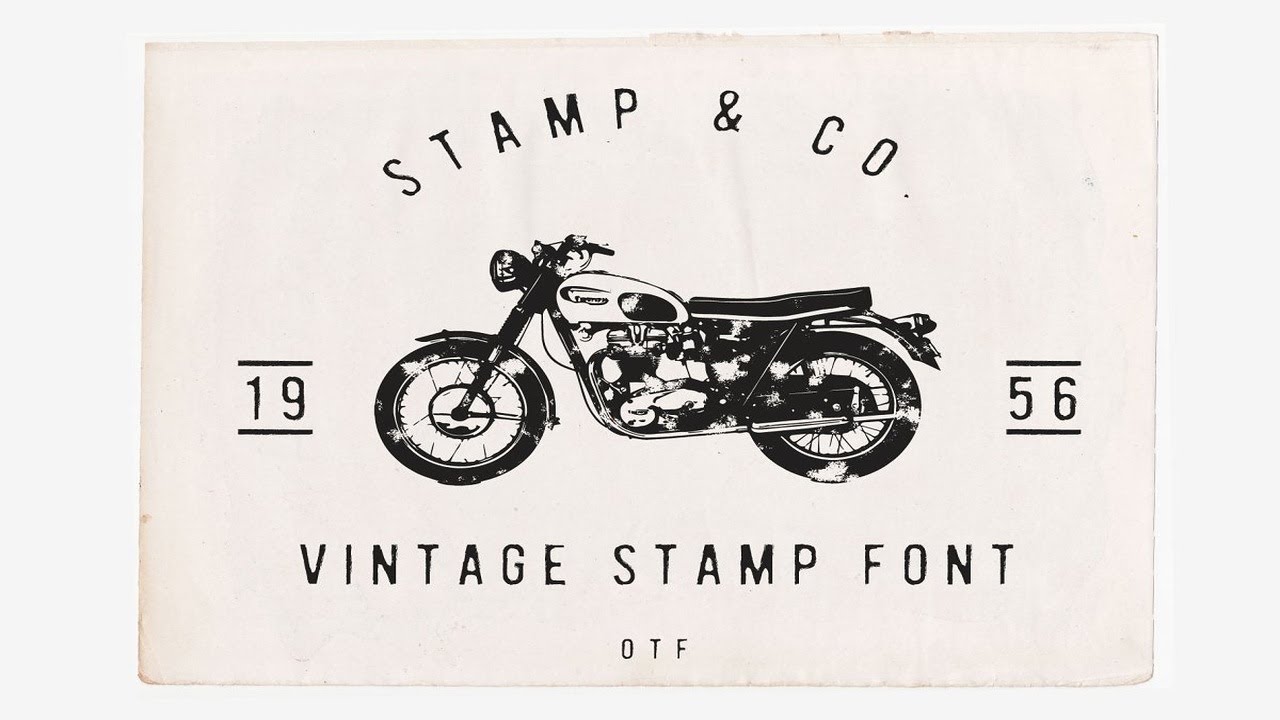
Stamp Font Dafont
Nova Stamp Font Dafont Here is a collection of fonts that look like are stamped or imprinted with ink. This font is partial and free for personal use. This dynamic font encompasses both uppercase and lowercase letters, as well as digital symbols and numbers, offering versatility for any of your projects. this font is free for personal use and no commercial use is allowed!. Browse various styles for creative projects and enhance your typography with stamp inspired lettering.
Rubberstamp Font Dafont Download free stamp font, view its character map and generate text based images or logos with stamp font online. Download and generate image with the stamp act font, free for personal use. perfect for fancy fonts designs that can be used on any device such as andriod, pc, mac, linux. The imperfect, distressed edges mimic the natural imperfections of ink stamping, giving the font a raw and organic personality that feels both classic and modern. Original stamp font from dafont studio it is available for download and can be used in commerce. perfect for original postcards, stamps and prints. you can download the best fonts, free fonts for personal or commercial use. with beautiful script type, professional sans serif font and more.
Stamp Act Font Dafont The imperfect, distressed edges mimic the natural imperfections of ink stamping, giving the font a raw and organic personality that feels both classic and modern. Original stamp font from dafont studio it is available for download and can be used in commerce. perfect for original postcards, stamps and prints. you can download the best fonts, free fonts for personal or commercial use. with beautiful script type, professional sans serif font and more.